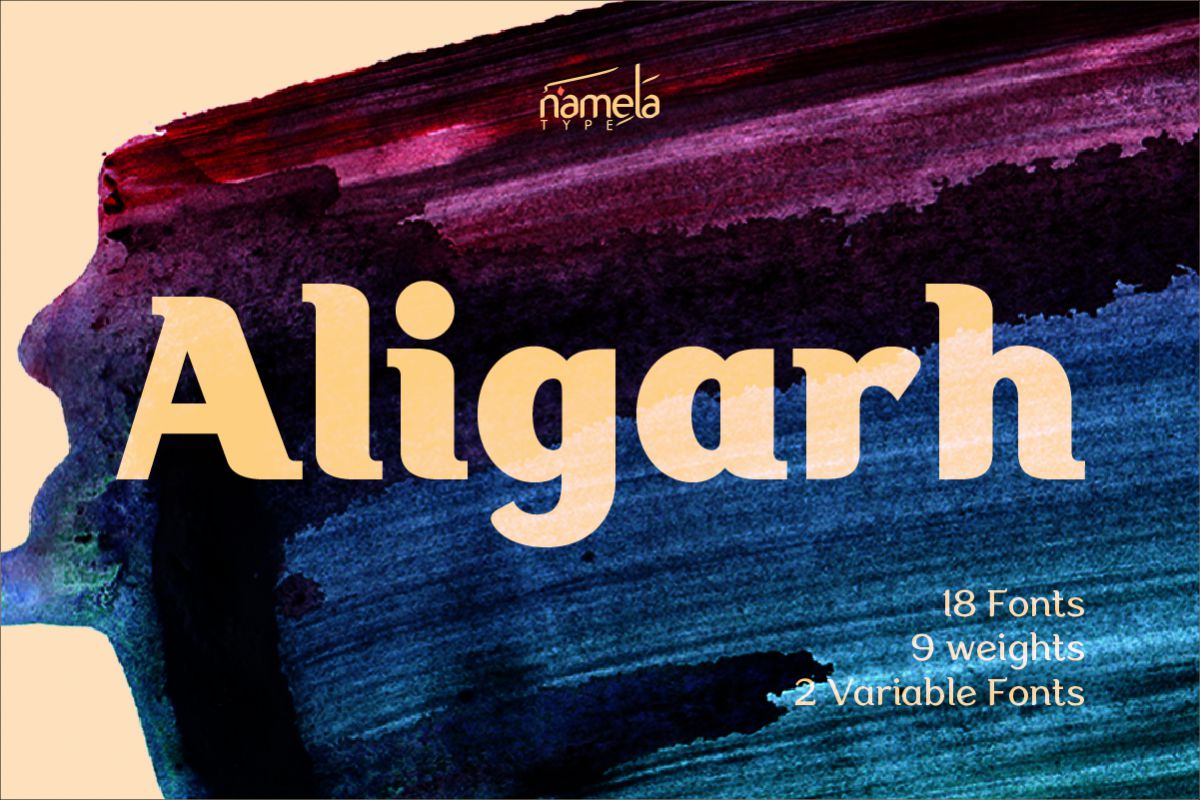
Aligarh Regular
Aligarh Font - A Unique Semi-Slab Serif Typeface for Branding & ePub First impressions in typography matter, and Aligarh Casual Semi-Slab serif Font makes a strong one. This unique semi-slab serif typeface carries a rare combination of authority and warmth: structured enough to command attention, yet humanist enough to remain approachable. Built for branding, editorial publishing, and ePub, Aligarh is a strong choice for projects that need to feel intelligent, timeless, and distinctly refined.